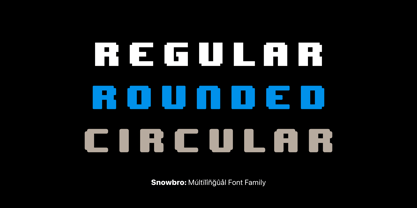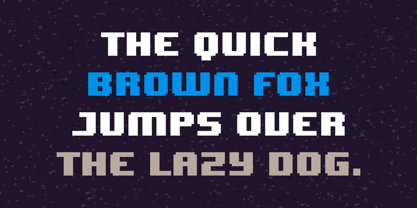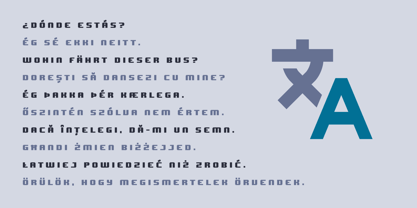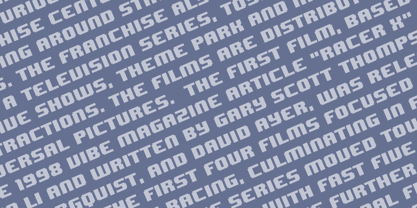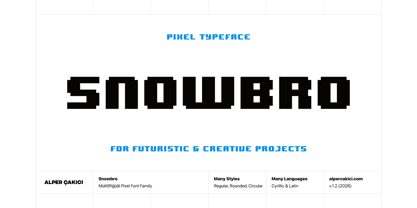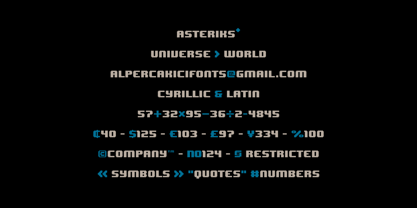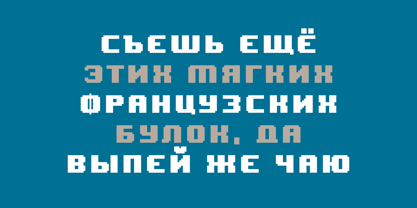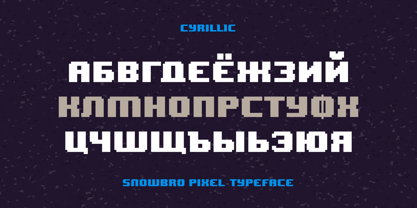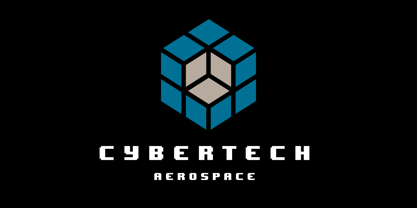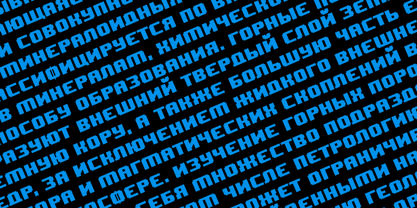
Snowbro
by AlperCakici
The Snowbro Font Family was designed by Alper Çakıcı and published by AlperCakici. Snowbro contains 1 styles.
Snowbro - A Display Font : Snowbro is a carefully crafted display font. It has Extended Latin and Cyrillic characters. It created for poster, web, brand and social media designs.
Designers: Alper Çakıcı